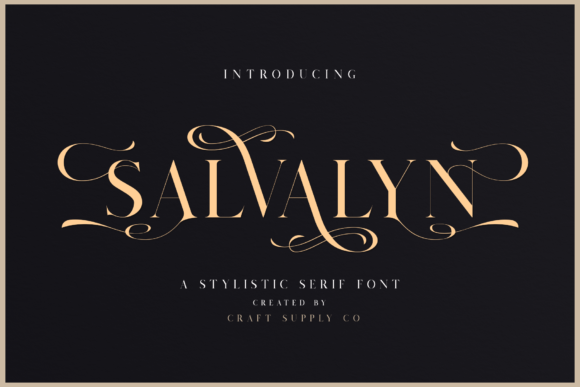
Introducing Salvalyn Font, an exquisite serif font family crafted with love by craftsupplyco. With its delicate curves, subtle flourishes, and timeless elegance, Salvalyn promises to bring enchantment and sophistication to your creative endeavors.
Step into a world where beauty meets functionality. Salvalyn's versatile nature makes it suitable for an array of design projects, from personalized DIY creations to captivating book titles. It's the perfect touch for those seeking a touch of vintage charm or a splash of retro nostalgia. Unleash your imagination and let Salvalyn guide you through enchanting forests of creativity and boundless inspiration.
Whether you're a seasoned designer or just starting, Salvalyn will be your trusted companion, guiding you effortlessly through the art of elegant design. With each stroke of your creative brush, Salvalyn will transform your words and designs into breathtaking masterpieces, leaving your audience spellbound by its charm.
Imagine the delight of your loved ones receiving heartfelt cards adorned with Salvalyn's graceful script or the anticipation of your readers as they embark on a literary journey marked by Salvalyn's captivating presence. With this font, your creative pursuits will transcend the ordinary and leave an indelible mark on the hearts of those who encounter it.
Embrace Salvalyn Font and embark on a creative journey like no other. Its timeless beauty and endless possibilities await you. Let Salvalyn ignite your passion, awaken your senses, and inspire creations that will leave the world in awe.